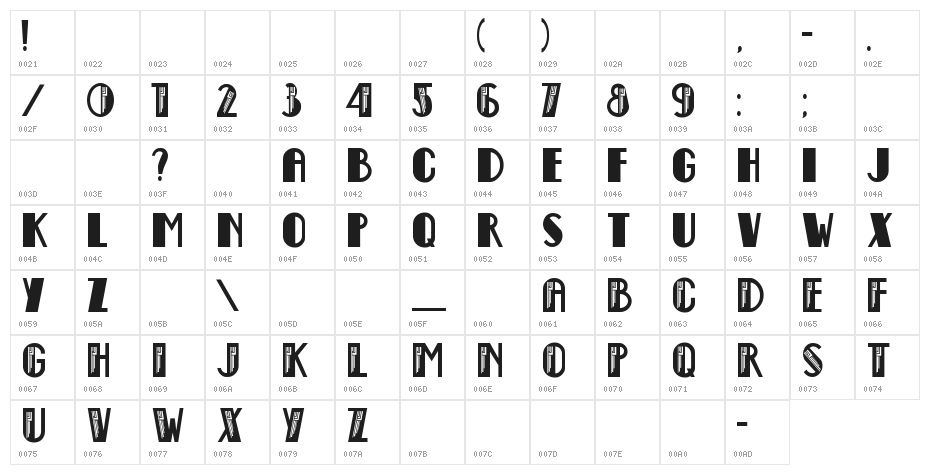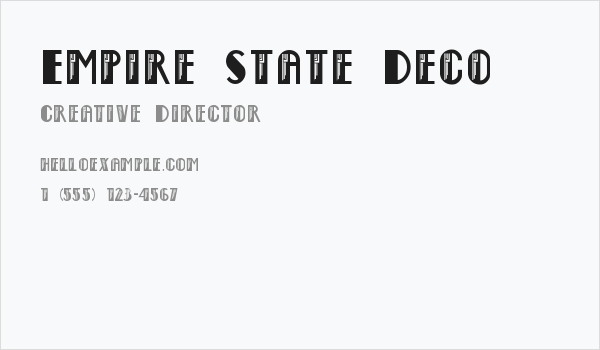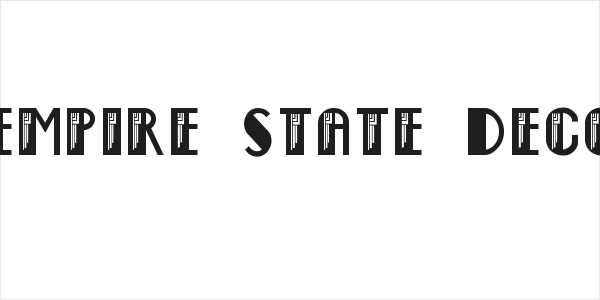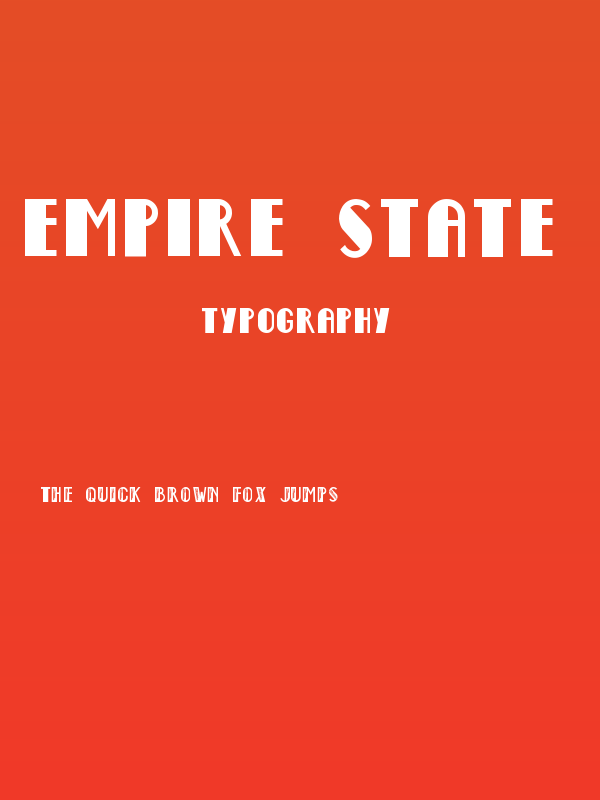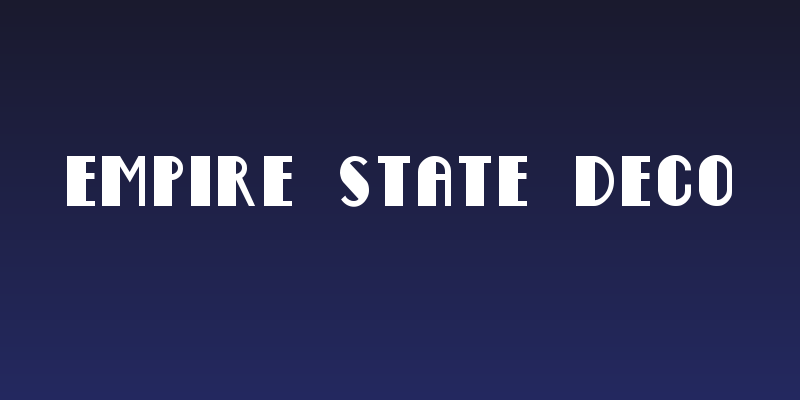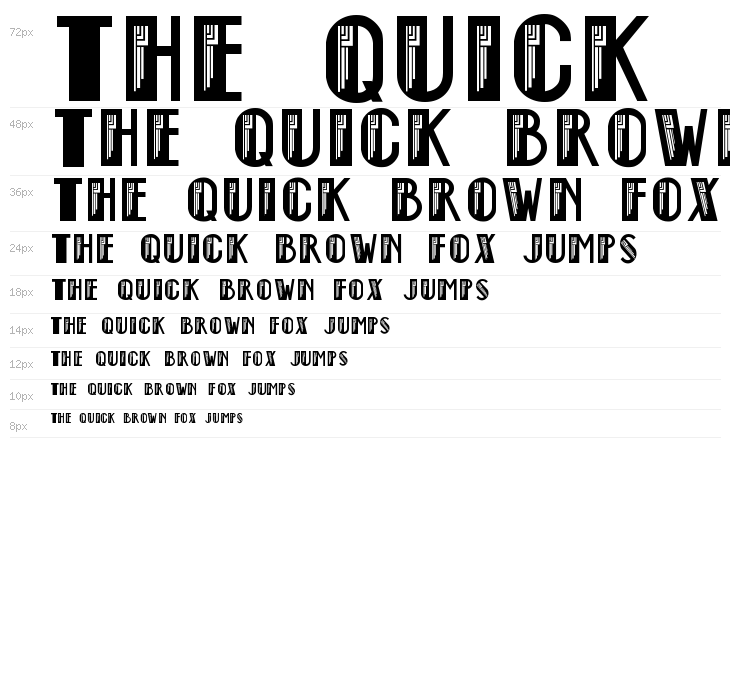
Empire State Deco Font
Empire State Deco Description
This font exhibits a bold and striking Art Deco style, characterized by its geometric shapes and strong vertical lines. The uppercase letters are particularly prominent, with a unique blend of thick and thin strokes that create a sense of elegance and sophistication. The numerals and special characters maintain this aesthetic, offering a cohesive and visually appealing set. The font's design is reminiscent of the architectural grandeur of the early 20th century, making it ideal for projects that seek to evoke a sense of luxury and timelessness.
| Proposed Projects | Ideal for branding, posters, and invitations that require a vintage or luxurious touch. |